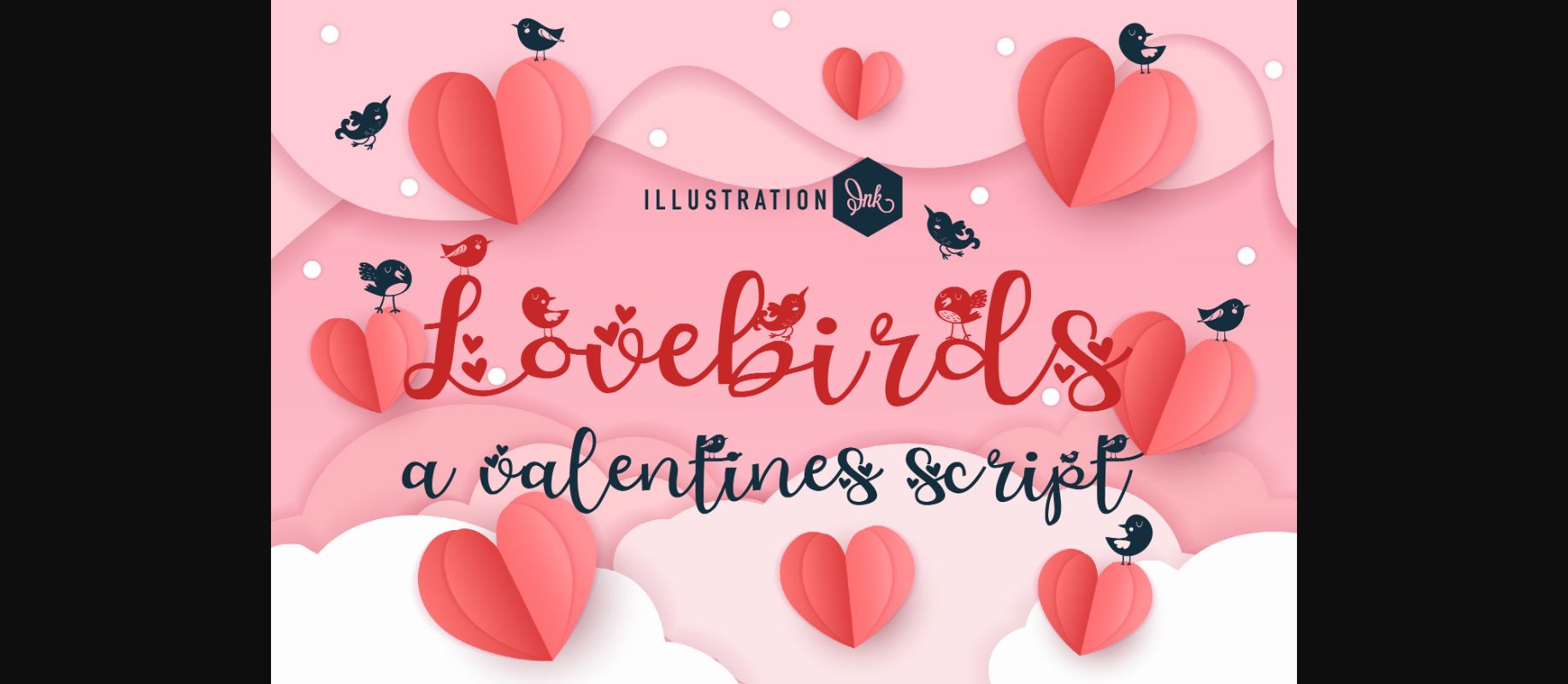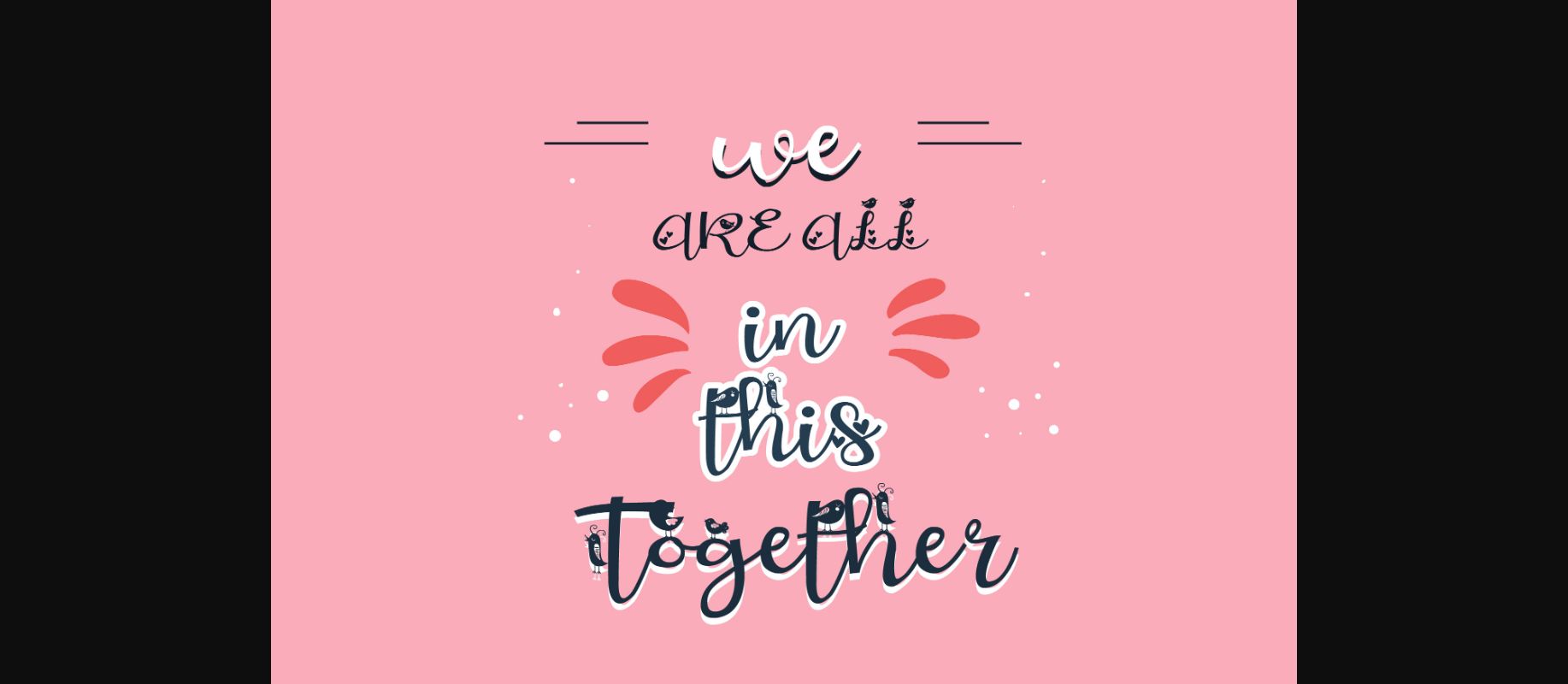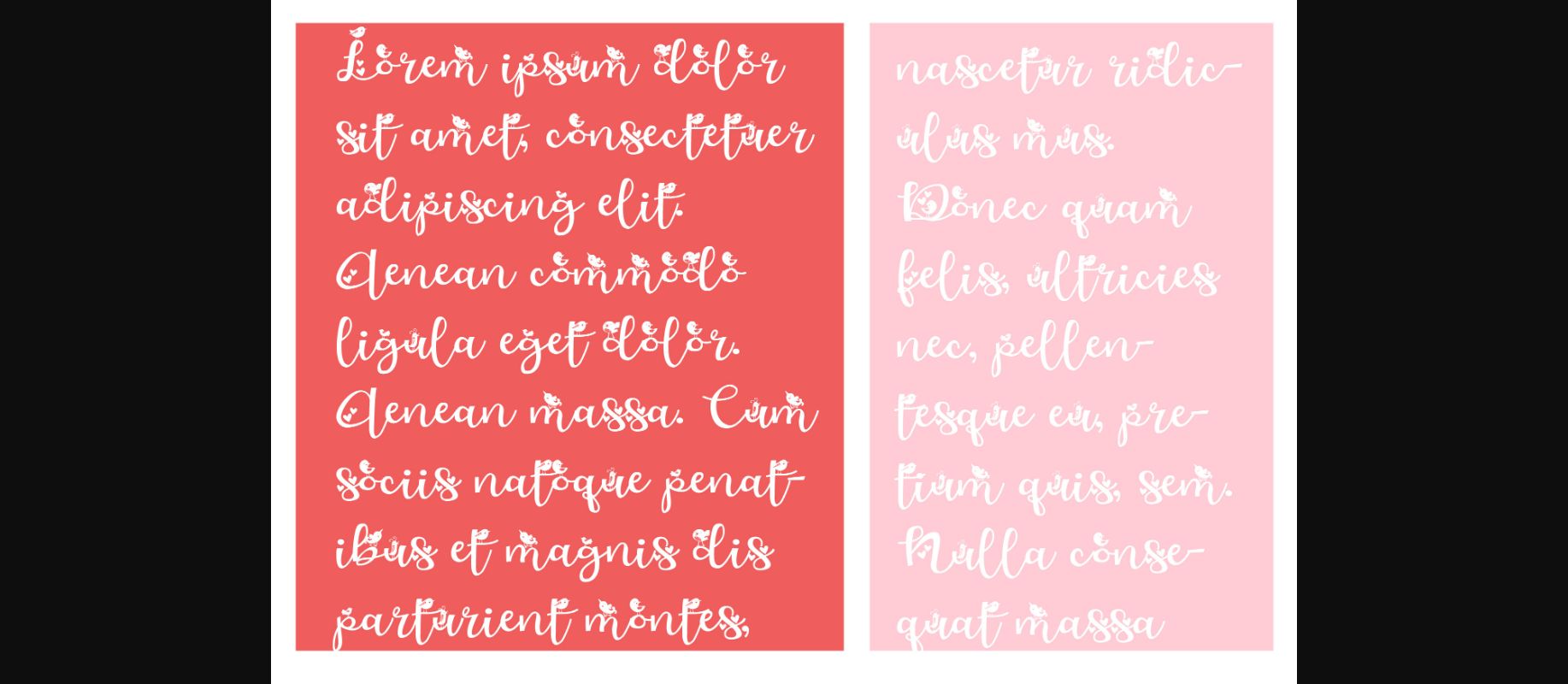
About Lovebirds Font
This hand-written font is a pretty cursive with lovebirds and hearts throughout. No matter the topic, this font will be an incredible asset to your fonts’ library, as it has the potential to elevate any creation.